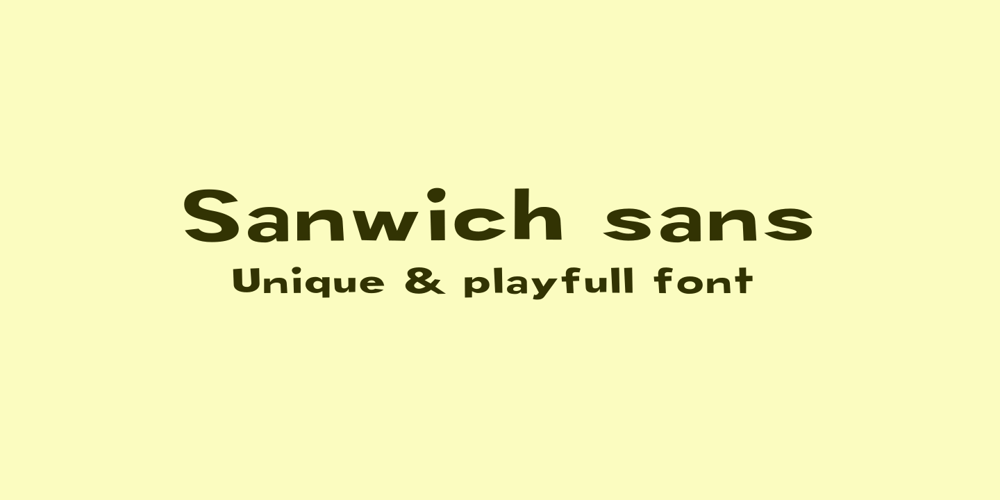
Sandwich sans Font Family was designed by Arief Rochman and published by 4RM Font. Sandwich sans contains 1 styles and family package options. Is a unique font, Sanwich sans is made with a messy character arrangement and an expanded width to get a silly and playful impression, suitable for use in casual themed graphic designs.